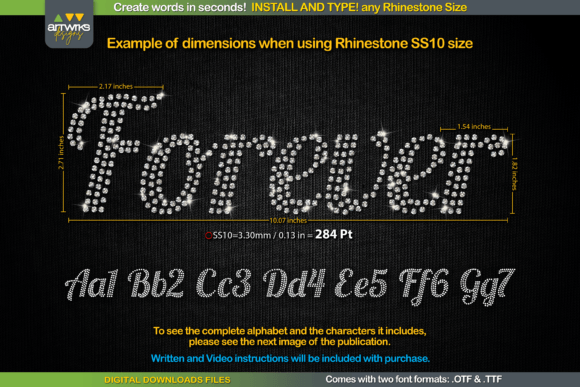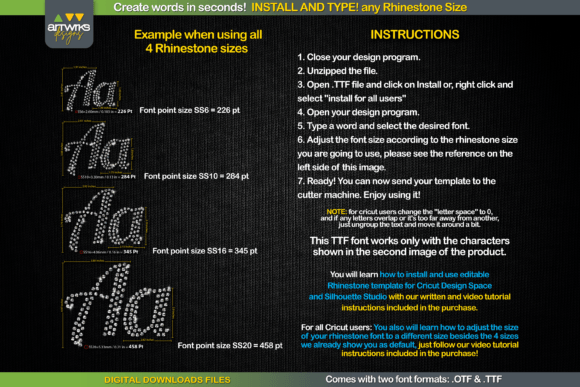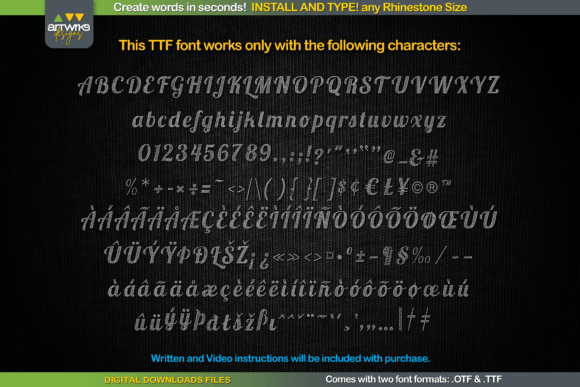
About Forever Font
The “Forever Script” for Rhinestone template is a fantastic font that simplifies the process of creating rhinestone designs. It offers a quick and easy way to generate words, and each letter is filled perfectly with rhinestones or arranged and trapped for heat transfer vinyl. This font is designed to provide convenience in customizing your designs with text, making it an ideal choice for those working with rhinestone templates and heat transfer vinyl.
Whether you’re creating designs for apparel, accessories, or any other project that involves rhinestone embellishments, the “Forever Script” font streamlines the process and ensures a visually appealing outcome. The convenience of typing and having each letter filled perfectly with rhinestones saves time and effort in creating intricate and dazzling designs.
In summary, the “Forever Script” font for Rhinestone templates is a cool and efficient tool for designers and creators working with rhinestones and heat transfer vinyl. Its user-friendly features make it a valuable asset for those looking to add a touch of sparkle and customization to their projects.